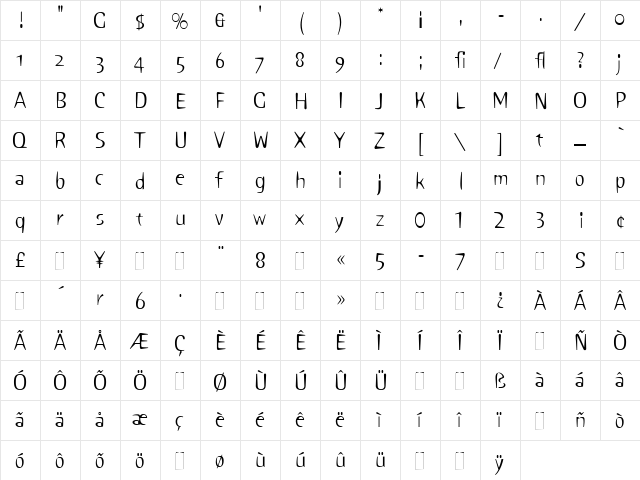
Pink LT Regular
| Foundry | Linotype Library GmbH |
Design Context for Pink LT Typeface
Pink LT takes a measured approach to typography — its balanced proportions and neutral character make it a reliable workhorse for both digital and print work. The delicate stroke weight brings airiness and refinement to layouts.